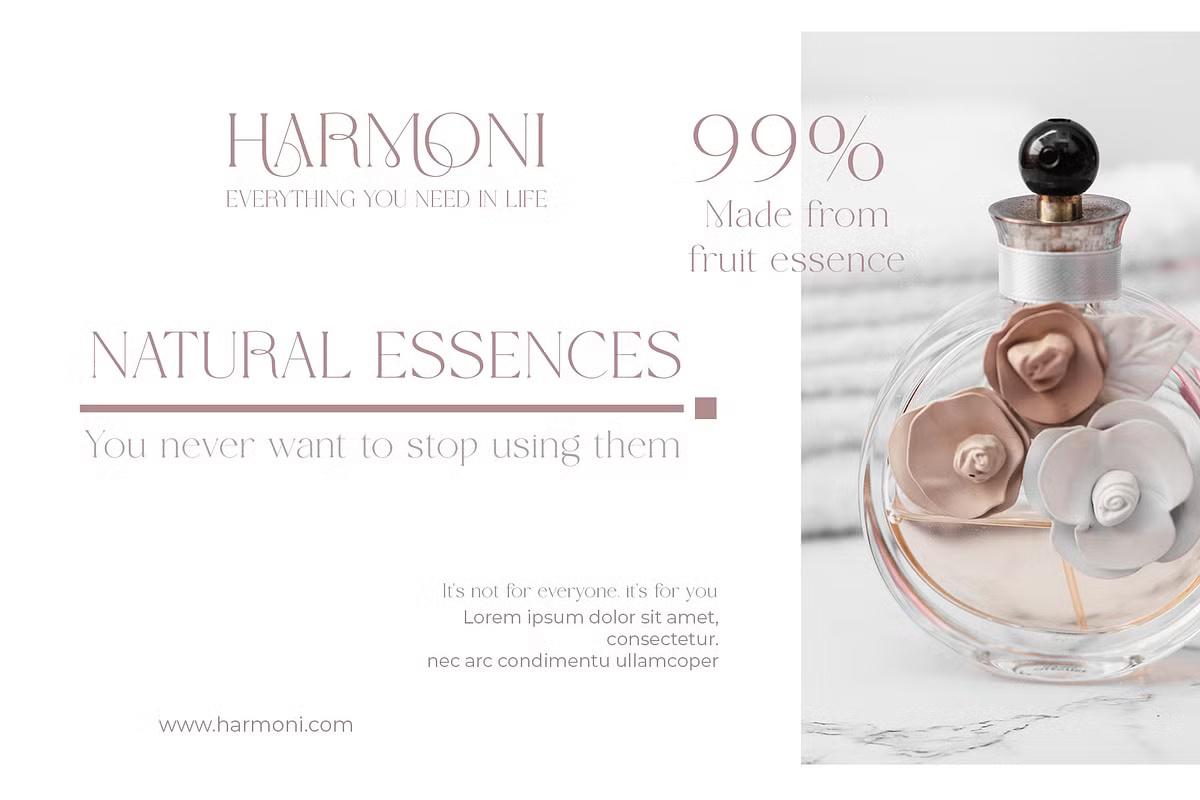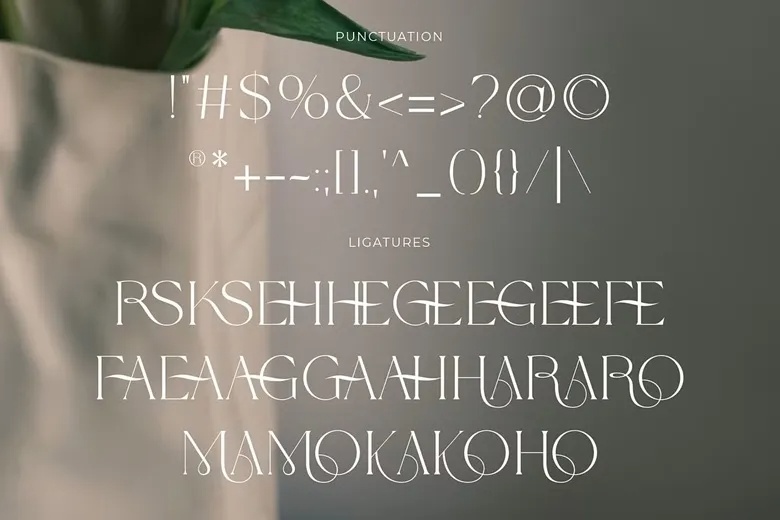
Wolmer Font
Wolmer is a brand-new, elegant serif font designed for modern and minimalistic projects. Its refined style makes it perfect for websites, contemporary logos, brand identities, social media quotes, wedding invitations, and especially editorial layouts such as magazines.
This font features well-crafted capital letters from A to Z, along with stylistic alternates and ligatures that enhance its versatility and sophistication. Whether you’re working on a personal project or a professional venture, Wolmer adapts beautifully across a wide range of uses.
Ideal for logos, branding, wedding stationery, business cards, greeting cards, posters, editorial design, agendas, and digital platforms, Wolmer adds a touch of class to any design.